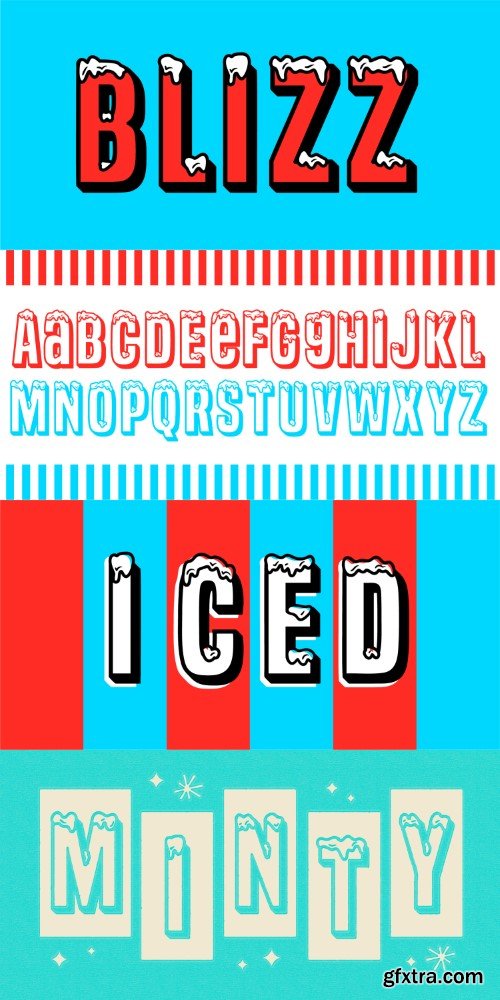
暴雪字体
Blizz is a frosty flashback to the icy cool vibes of a vintage ice machine, where every letter is capped in snow and every curve carries a chill. Bring a blast of nostalgia to your typography, perfect for freezing your audience in their tracks.